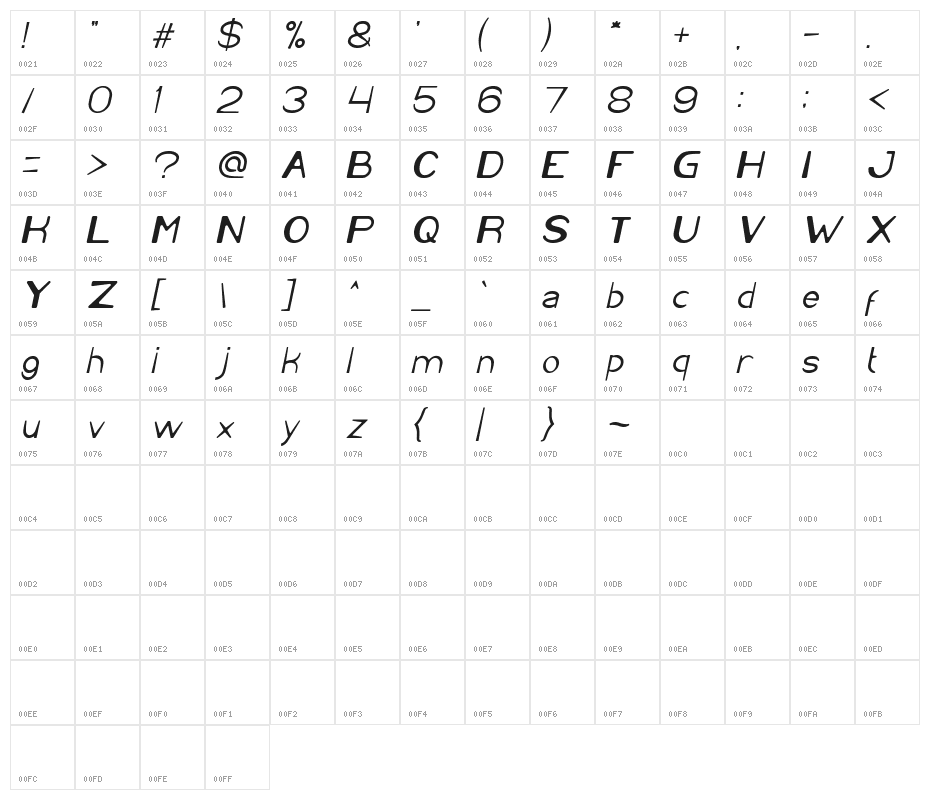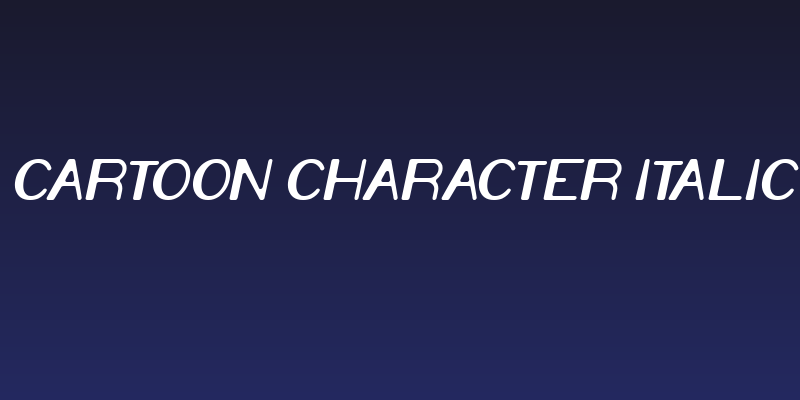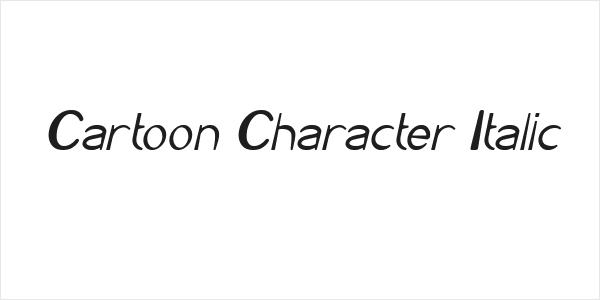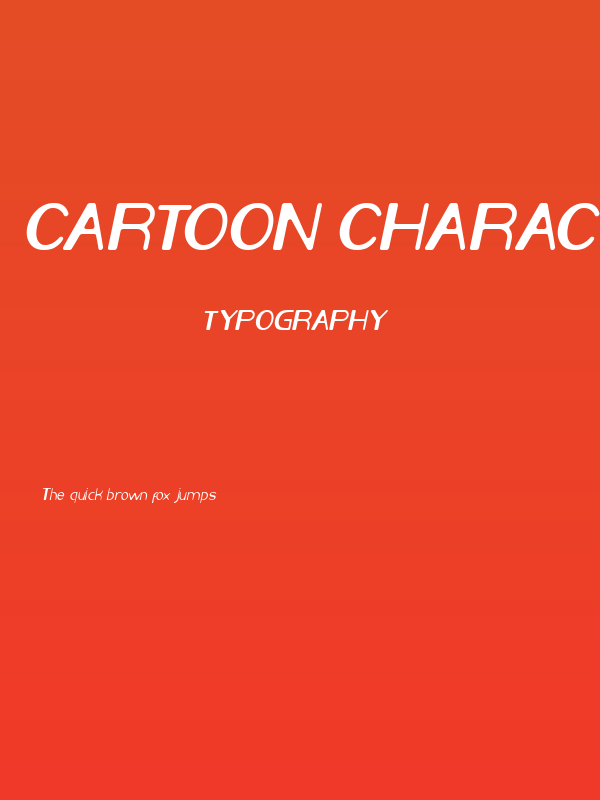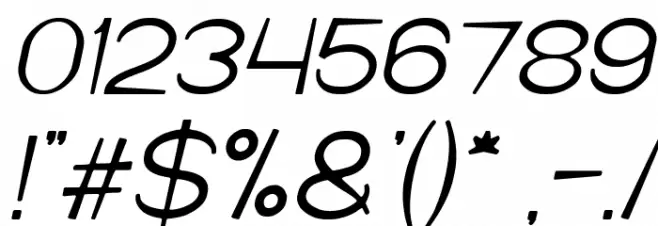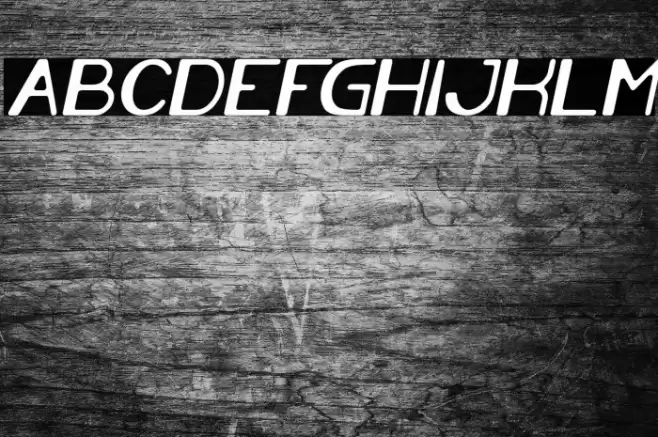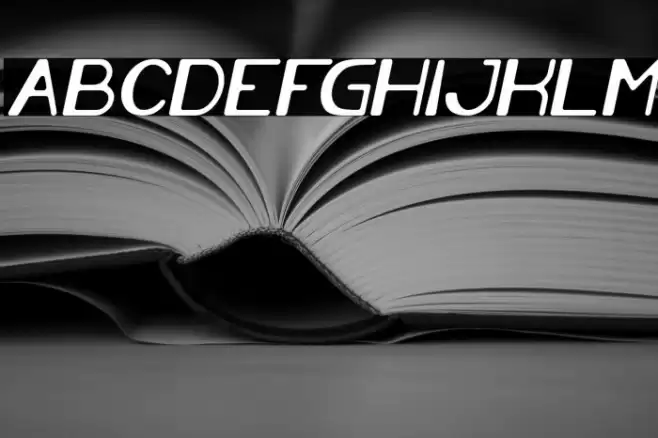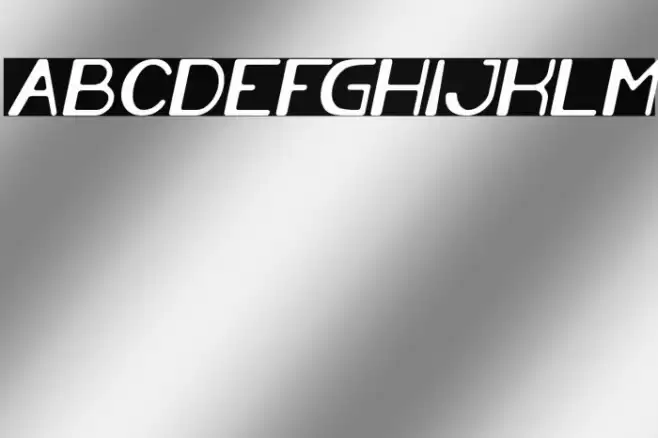
Cartoon Character Italic Font
This font features a playful and dynamic style, characterized by its italicized and slightly slanted letterforms. The characters are smooth and rounded, giving off a friendly and approachable vibe. The uppercase and lowercase letters maintain a consistent flow, while the numerals and special characters complement the overall aesthetic. The font's design is clean and modern, making it suitable for various creative applications. Its unique style is ideal for projects that require a touch of whimsy and personality.
| Proposed Projects | Ideal for children's books, cartoon titles, playful branding, and creative posters. |